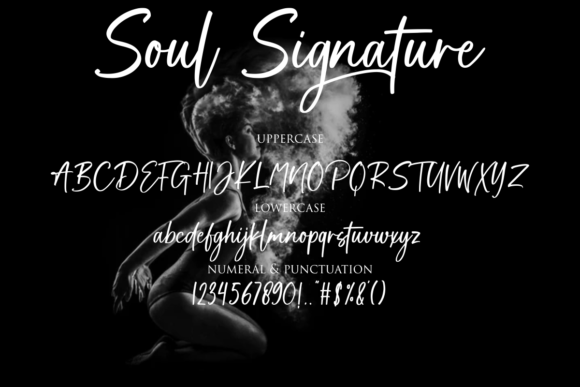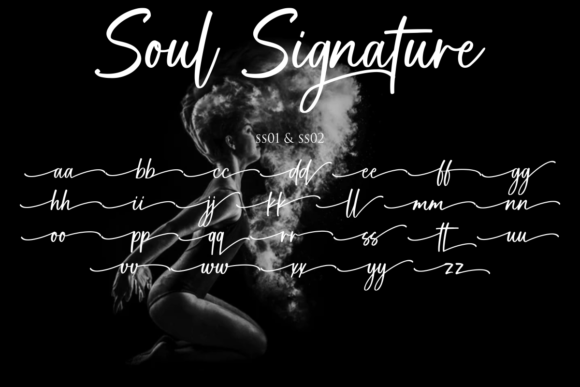
About Soul Signature Font
Soul Signature is a delicate and elegant handwritten font. Its distinct letters make this font a masterpiece. Fall in love with its incredibly versatile style and use it to create spectacular designs!